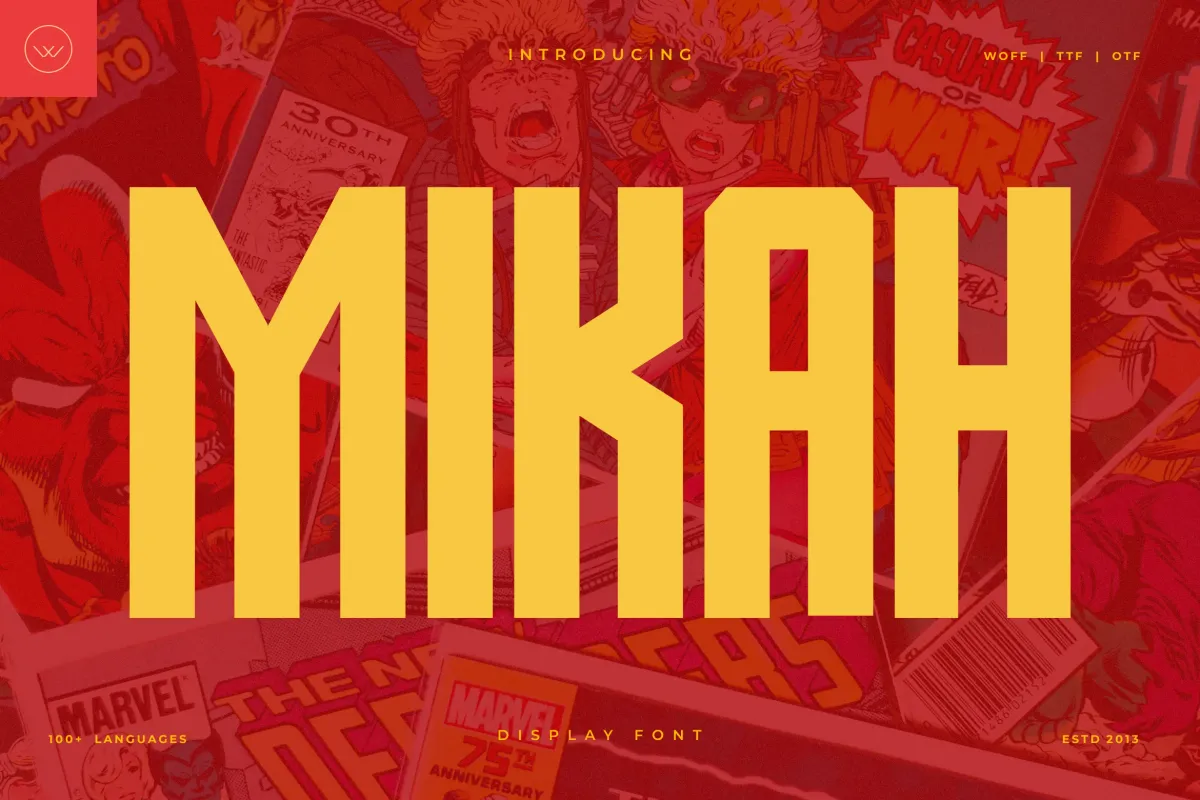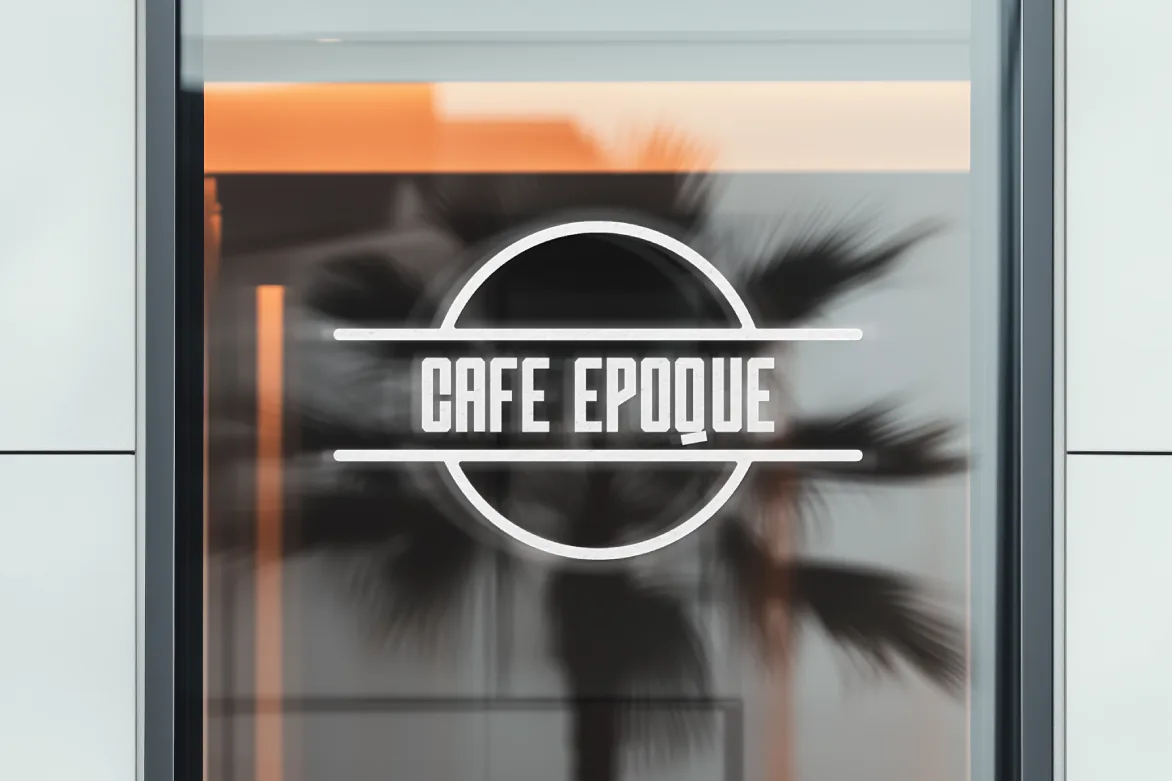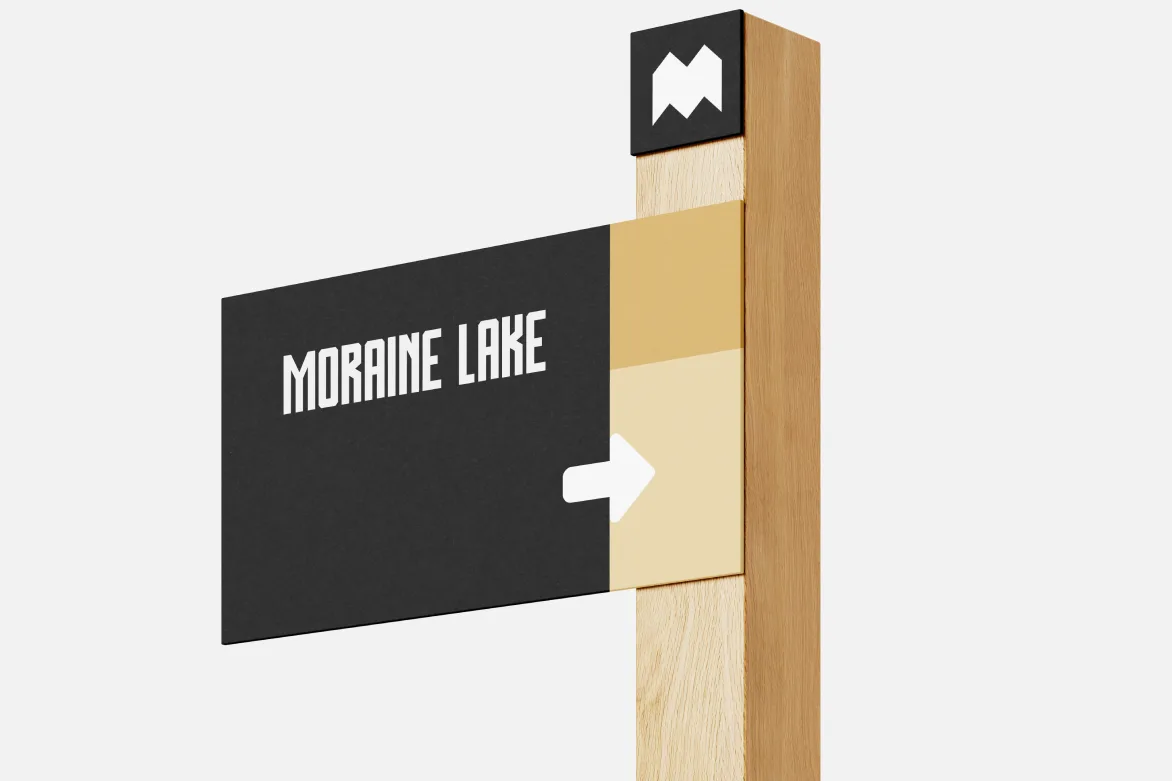
Mikah
Mikah, a unique sans-serif font in the display category, captures the essence of retro design with its playful and bold aesthetic. The geometric construction of each character, combined with chunky strokes, gives this typeface an inviting and dynamic presence that draws attention. Designed specifically for high-impact use cases, Mikah excels in environments where visual engagement is key, such as gaming interfaces, Instagram graphics, and TikTok videos.
This font's versatility is evident in its range of applications; it can elevate editorial layouts and marketing materials while also shining in logotype designs. The careful kerning enhances readability, making Mikah suitable for both digital and print formats. Whether you're crafting a captivating headline or designing a striking logo, this font's distinctive character ensures a lasting impression.
Mikah is particularly well-suited for branding initiatives that aim to evoke nostalgia or a sense of fun, catering to audiences that appreciate retro aesthetics. Its strong presence in headlines and product names can effectively communicate a playful yet professional tone, making it a valuable asset for creative projects across various platforms. With support for Latin languages, Mikah stands ready to make your designs pop in any context.